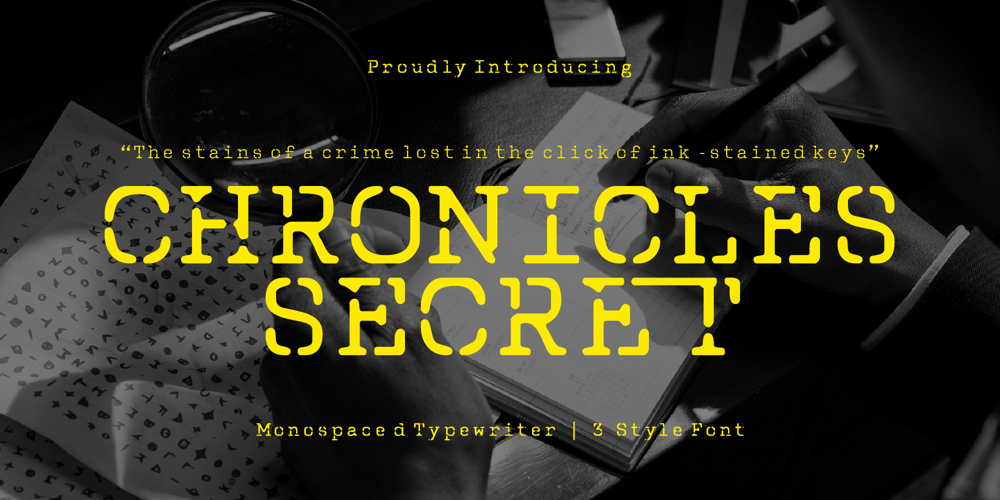
Chronicles Secret Font Family was designed by Dede Kurniawan and published by Creatifont Studio. Chronicles Secret contains 3 styles and family package options. Chronicles Secret – inspired by the rhythmic clatter of vintage typewriters, whispers tales of suspense and mystery. Its three distinct styles – angular, rounded, and smooth – offer a unique blend of typewriter charm and contemporary flair, ensuring a font for every narrative. Whether you seek the sharp precision of angular strokes, the inviting warmth of rounded curves, or the dreamy intrigue of blurred edges, Chronicles Secret empowers your design with a touch of vintage magic. Its diverse ligatures, echoing the intricate dance of typewriter keys, further enhance your typographic artistry.A SUMMARY OF WHAT’S INCLUDED: Standard Character A-Z, a-z, 0-9, Diacritics, Punctuation & symbols 3 Font Styles (Angular, Blur, Rounded) Various of Alternate Lots of Ligature Works on PC & Mac Simple installation Accessible in Adobe Creative Suite (Ai, Ps, Id, etc.) even work on Microsoft Word. PUA Encoded Characters – Fully accessible without additional design software. 🌟If you come across any issues or notice anything we might have overlooked while using this product, please feel free to reach out to us. We greatly value your feedback as it helps us enhance and refine our products. Thank you!*The font format you receive depends on the license you purchase.